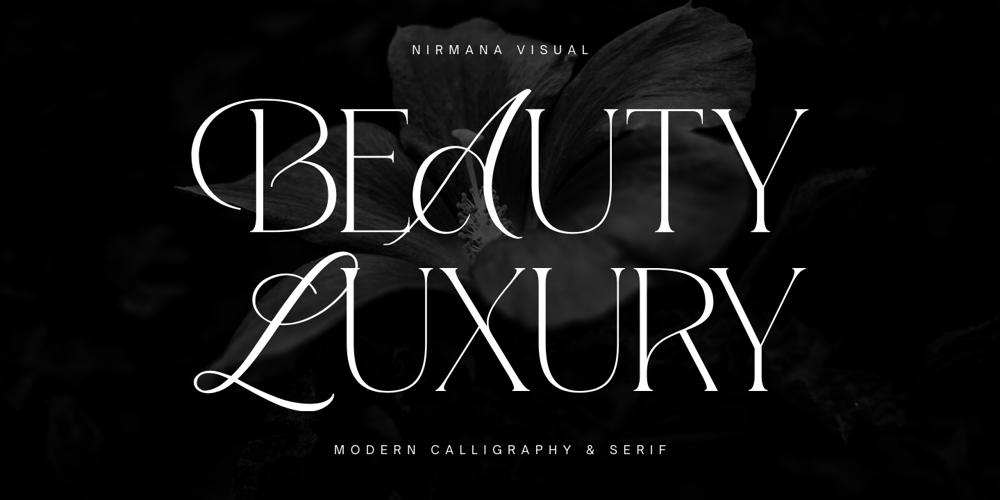
Beauty Luxury Font Family was designed by Sigit Dwipa and published by Nirmana Visual. Beauty Luxury contains 1 styles and family package options. Beauty Luxury is a luxury typeface, mix of modern calligraphy and serif. full set of lowercase and uppercase letters, numerals and punctuation, multilingual symbols.luxurious and clean style to websites, modern logos, branding identity, social media quotes,and wedding stationery.